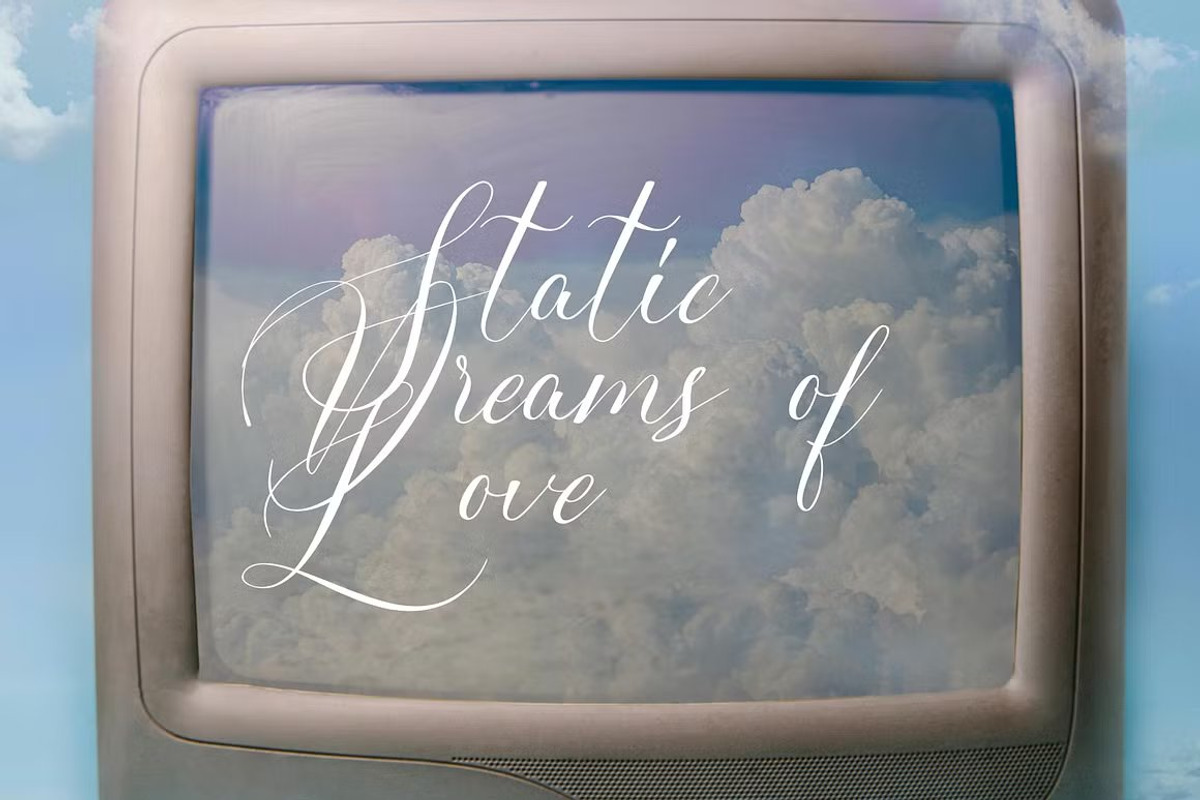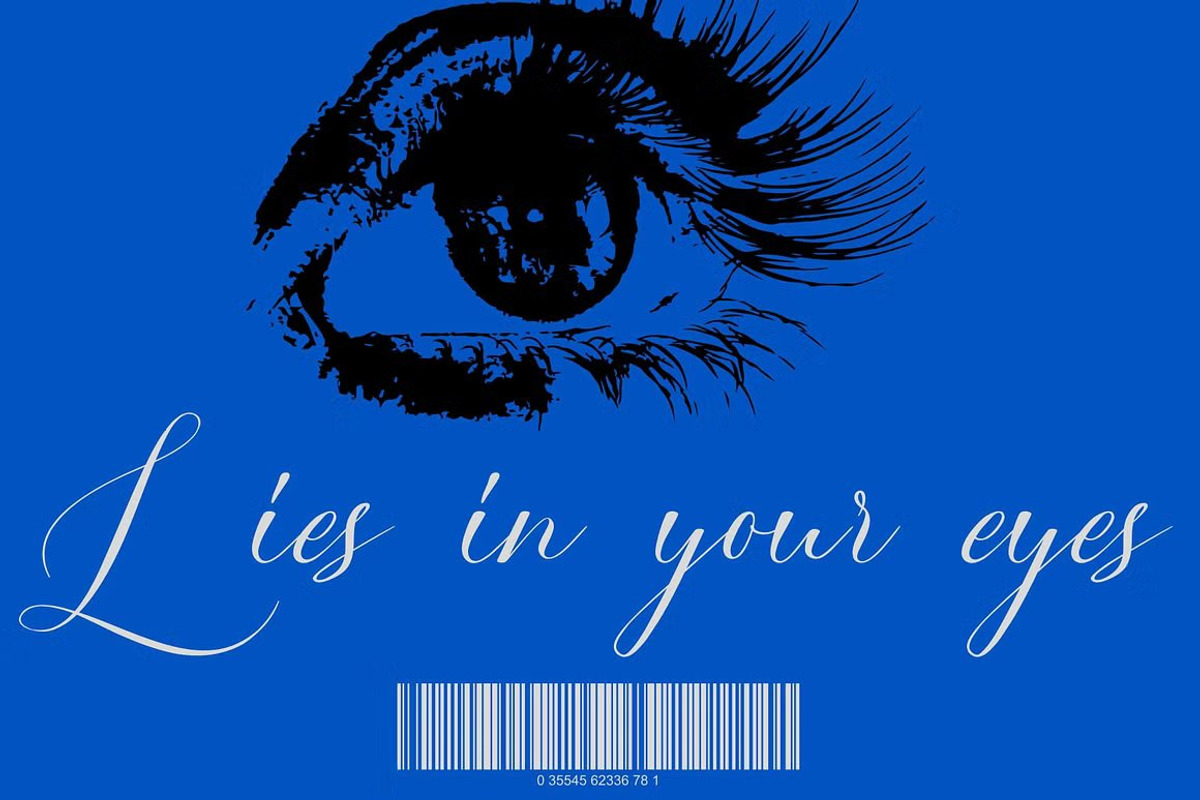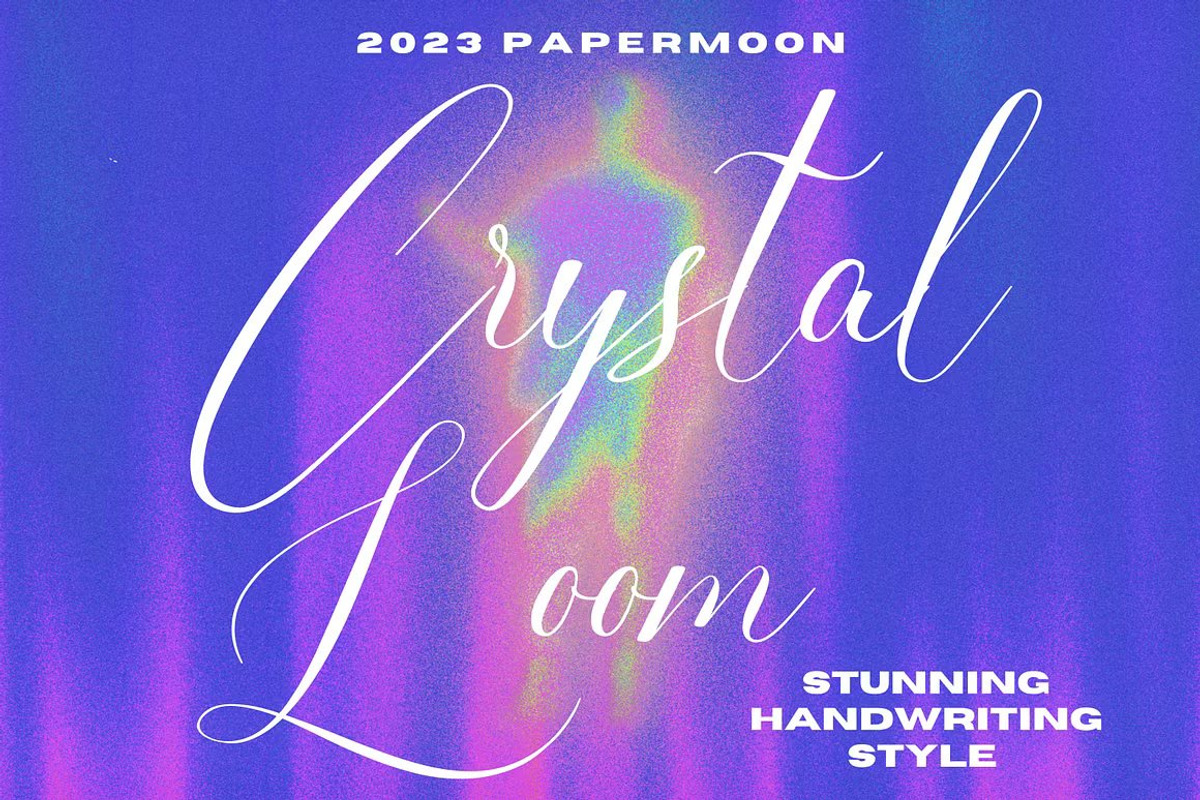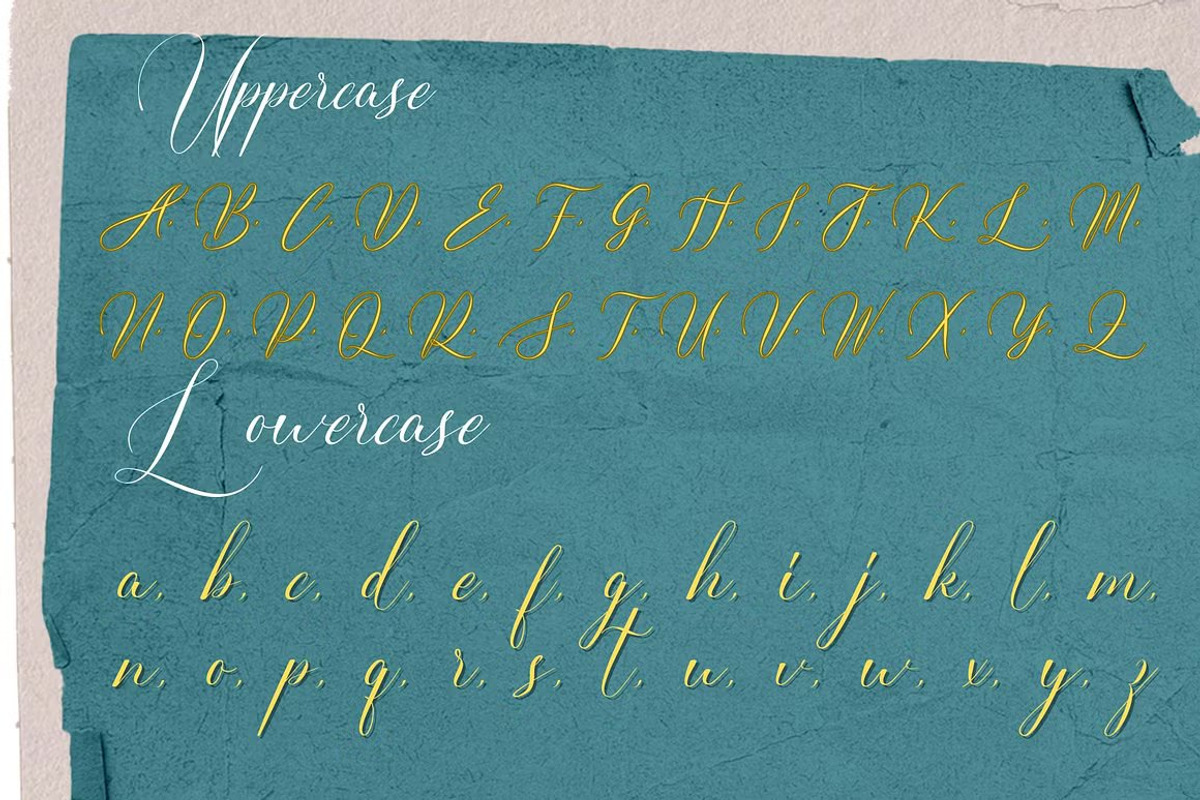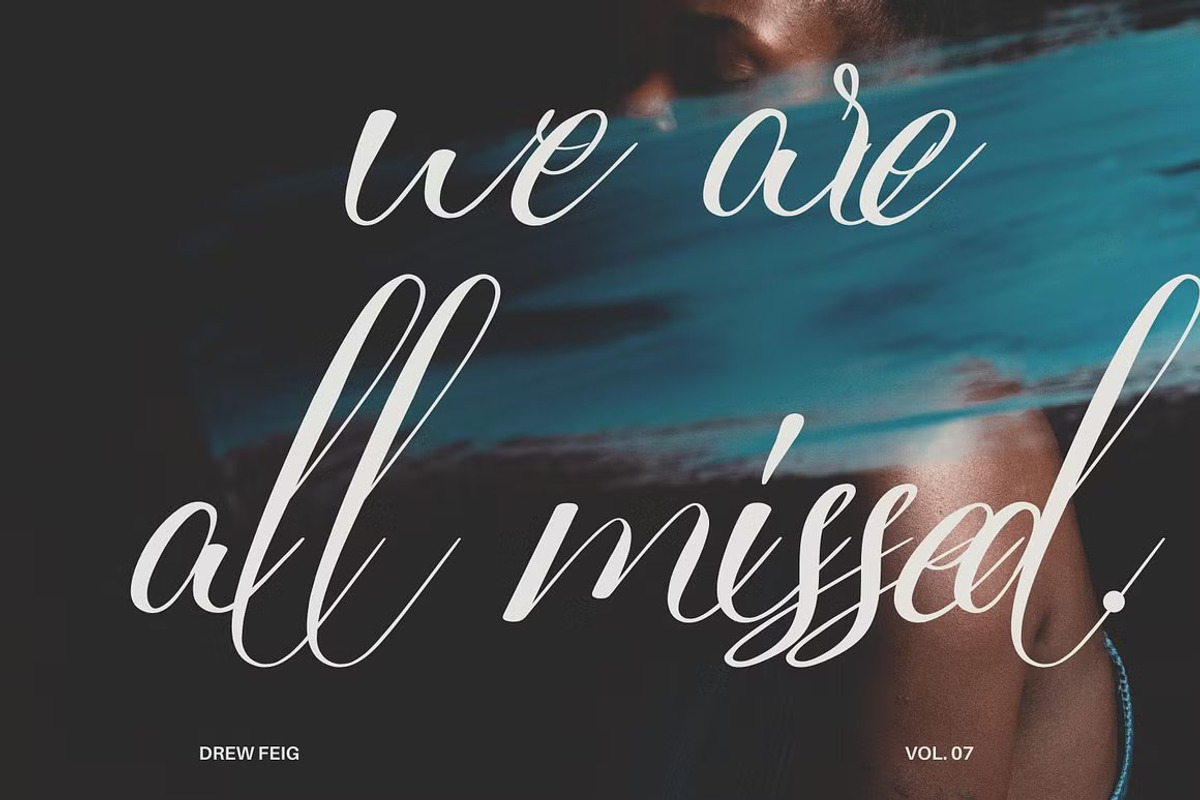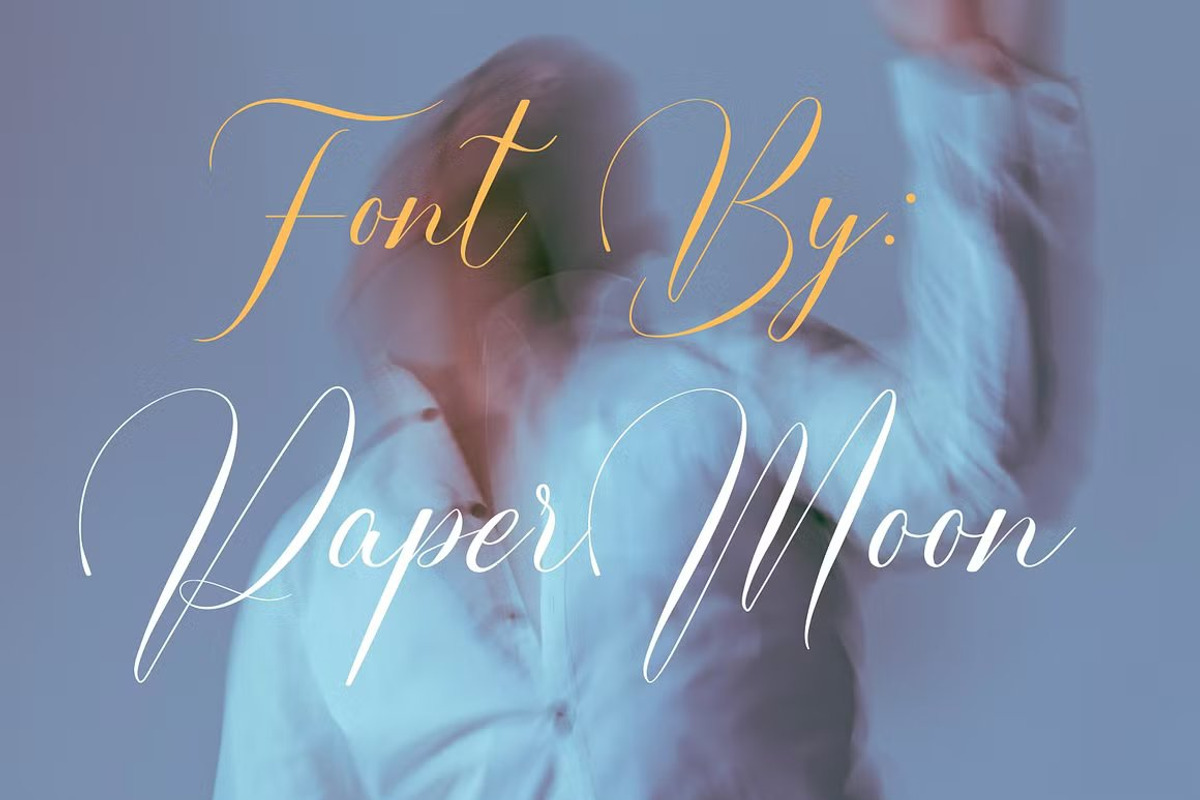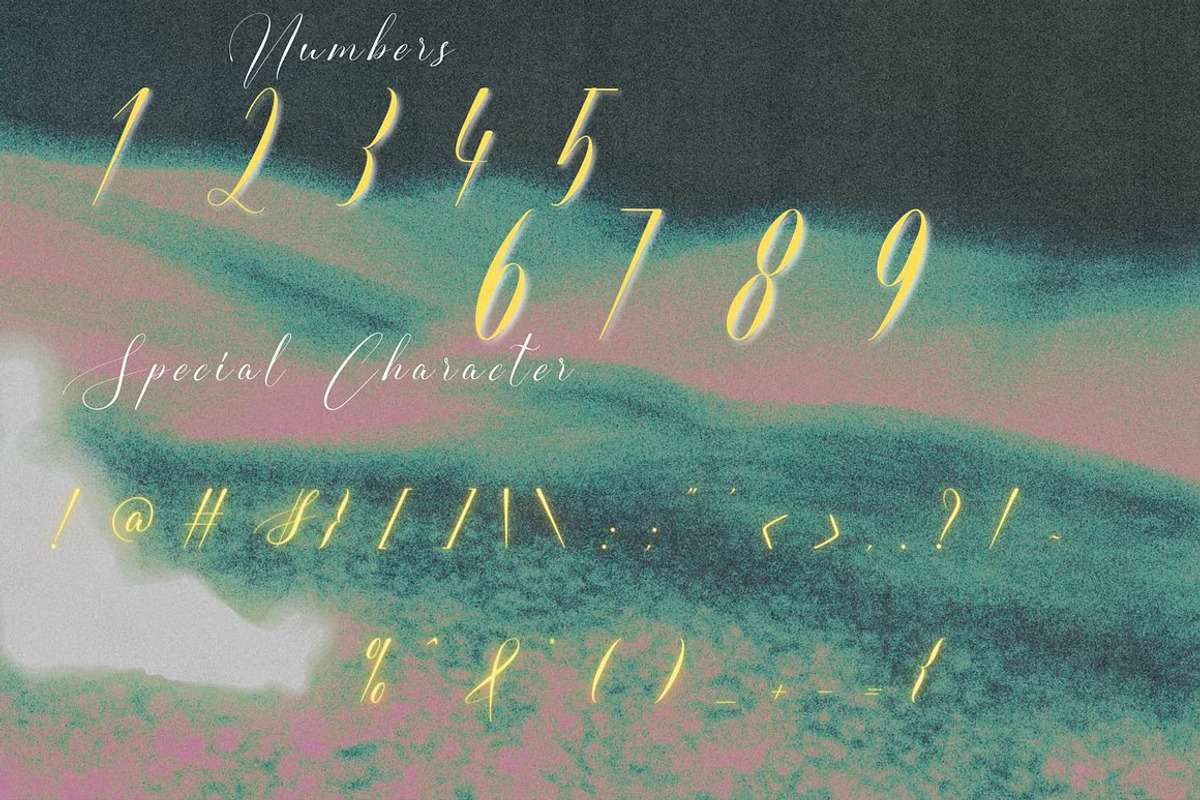
Crystal Loom Handwriting Font
Introducing Crystal Loom: A Captivating Calligraphy Font Script with Timeless Elegance
Crystal Loom is an exquisite calligraphy font script known for its refined handwriting style and meticulous craftsmanship. This unique typeface offers a stunning, original look with each character carefully spaced and kerned for perfect readability. Crystal Loom brings an aura of sophistication, elegance, and timeless calligraphic charm to any project.
Unleash the enchantment of Crystal Loom in your projects and experience the timeless charm of elegant calligraphy.